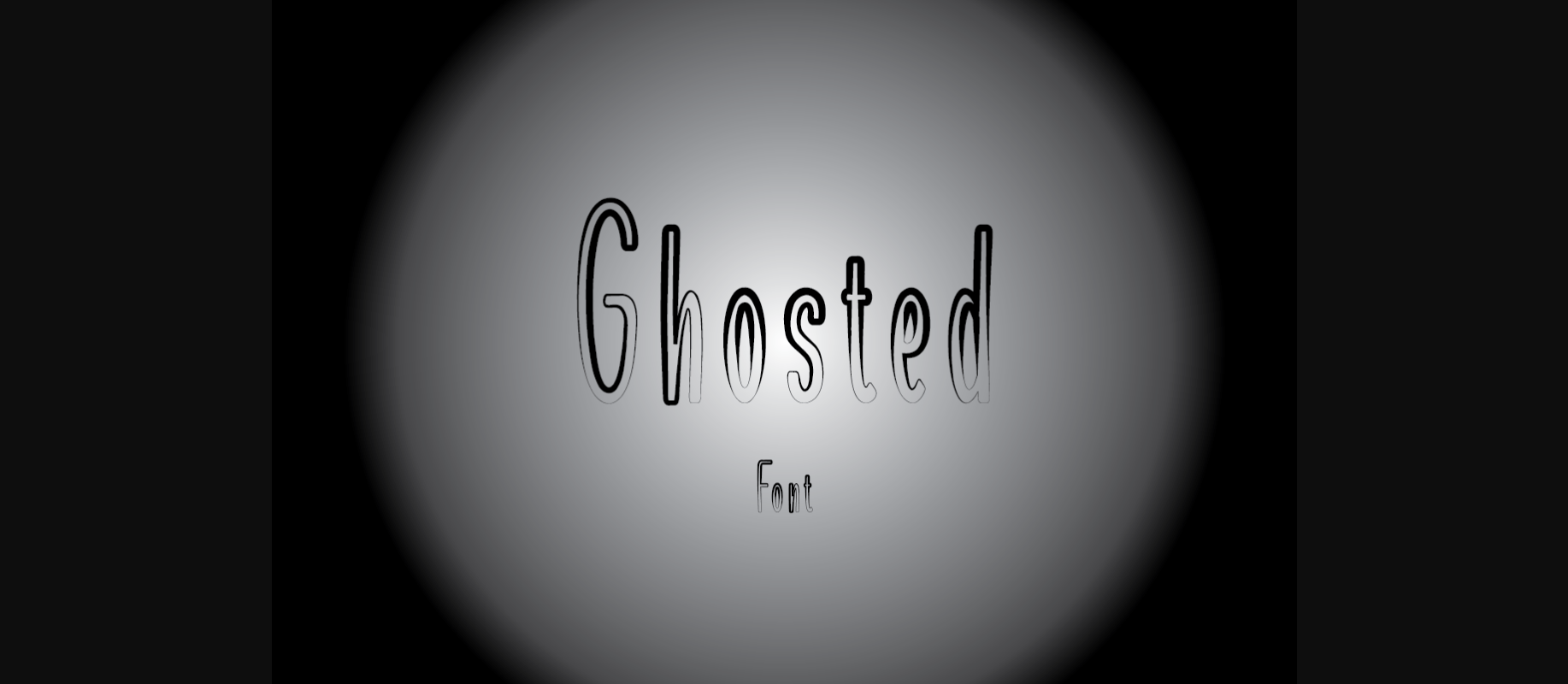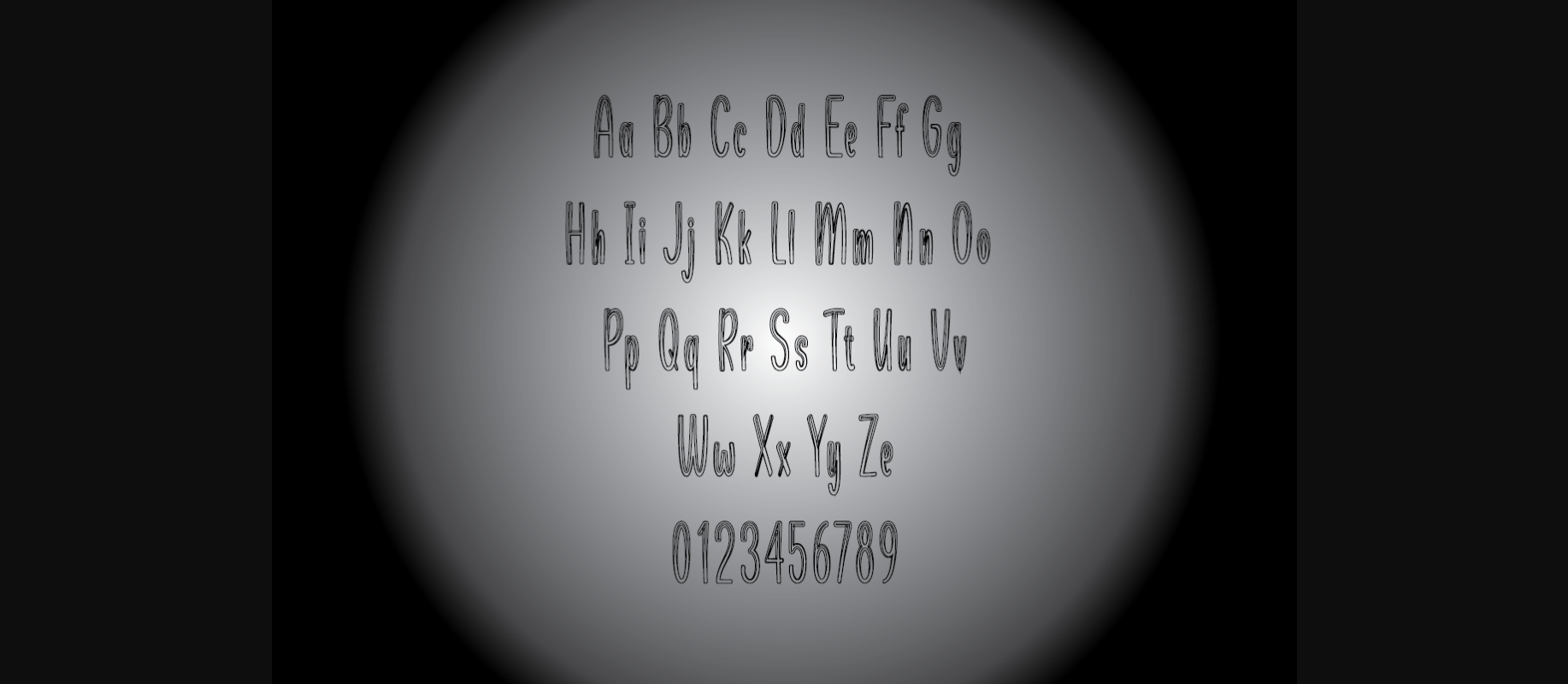
About Ghosted Font
Ghosted is a unique, fun, and attractive decorative font, perfect for sublimation, clothing, greeting cards, advertisement, birthday parties, quotes, titles, brand names, book covers, holidays, and much more. The options are endless.